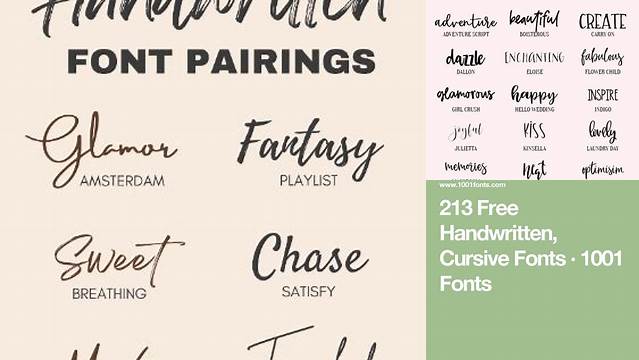
Explore Handwritten Fonts: A 1001Fonts Guide
Hey guys! Ever feel like your designs need a personal touch, something that screams authenticity and human connection? Well, you're in the right place! We're diving headfirst into the wonderful world of handwritten fonts, and trust me, it's a journey you won't regret. This article is your ultimate guide to exploring the vast collection of handwritten fonts available on 1001Fonts.com. We'll cover everything from the basics of what makes a handwritten font tick, to how to choose the perfect one for your project, and even some pro tips on using them effectively. So, grab your favorite beverage, settle in, and let's get started! This is going to be a fun ride through the world of typography!
What Exactly ARE Handwritten Fonts? – The Basics
Okay, first things first: What exactly are handwritten fonts? Basically, these fonts aim to mimic the look and feel of real handwriting. Think of it as the digital embodiment of a pen or brush stroke on paper. They’re designed to look natural, imperfect, and full of character. Unlike clean, crisp, and uniform fonts like Times New Roman or Arial, handwritten fonts have a certain je ne sais quoi – a warmth and personality that can inject life into your designs. Think of them as the artistic cousins of the more sterile, mechanical fonts. You'll find variations that imitate anything from elegant calligraphy to scribbled notes, offering a diverse range of styles to suit any project. The beauty of these fonts lies in their inherent uniqueness. They often feature subtle variations in letterforms, connecting strokes, and uneven spacing, creating a more organic and less rigid appearance. This adds a layer of authenticity that can make your designs feel more relatable and trustworthy, and they are also incredibly versatile. Whether you're designing a website, creating social media graphics, or crafting invitations, handwritten fonts can be a powerful tool to communicate a specific mood or message. The variety is astounding. You'll find everything from casual, playful scripts perfect for children's books to sophisticated, flourished calligraphy styles suitable for wedding stationery. And the best part? You can access tons of these fonts, often for free, making it an accessible option for designers of all levels. Remember that a well-chosen handwritten font can really elevate a design, giving it that personal touch that's so often missing in the digital age. Choosing the correct handwritten font is key, so let's get started!
The Charm of Imperfection: Why Handwritten Fonts Resonate
One of the biggest draws of handwritten fonts is their inherent imperfection. In a world dominated by sleek, polished design, the subtle flaws and irregularities found in these fonts are a breath of fresh air. They remind us of the human touch, of something crafted by hand rather than generated by a machine. This authenticity is what makes them so relatable. When viewers see a handwritten font, they subconsciously perceive it as more personal, trustworthy, and genuine. It's a connection that's hard to replicate with other font types. These fonts tap into our innate appreciation for artistry and individuality. Every stroke, every curve, every imperfection tells a story, and this narrative richness is what truly captures the attention of the viewer. The imperfections are not flaws, but rather hallmarks of character and originality. It’s that unique blend of human elements that makes these fonts so effective. In contrast to the stark precision of digital fonts, handwritten fonts embrace fluidity and spontaneity. They add an element of surprise and playfulness to your work, encouraging viewers to connect with the message on a more emotional level. Because of this, they can be used to communicate warmth, creativity, and a sense of approachability. The imperfections of handwritten fonts make them powerful design elements, setting them apart from the ordinary and leaving a lasting impression. It's time to find the right one!